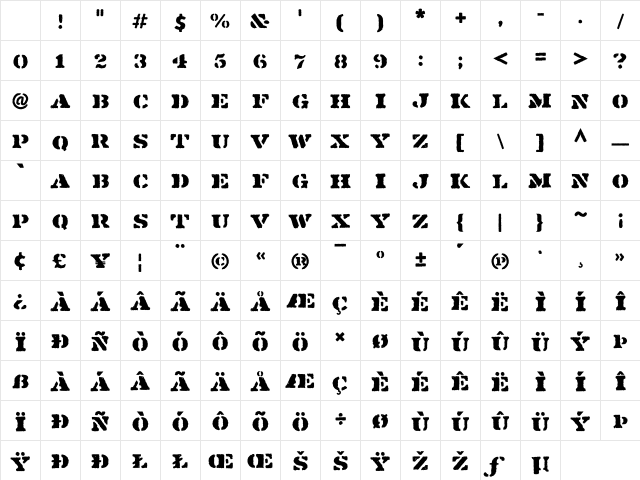
Stenso Stencil borrows the utilitarian aesthetic of stencil lettering, with its characteristic cutaways and no-frills construction lending an industrial edge.
Pro Tip: Use Stenso Stencil at large sizes on packaging, posters, or apparel where the stencil cutaways read clearly. Avoid small sizes where those gaps become visual noise.